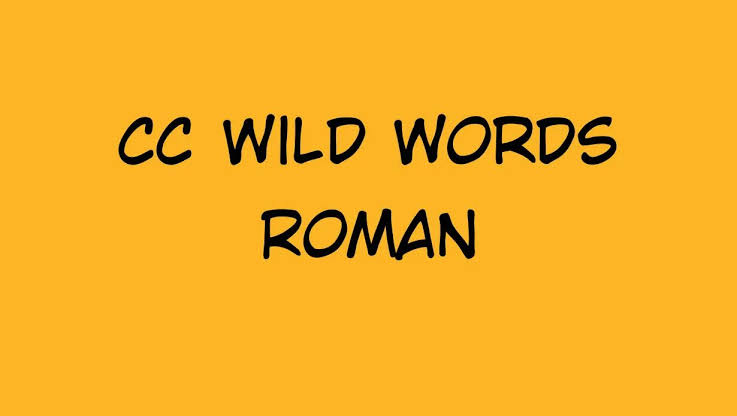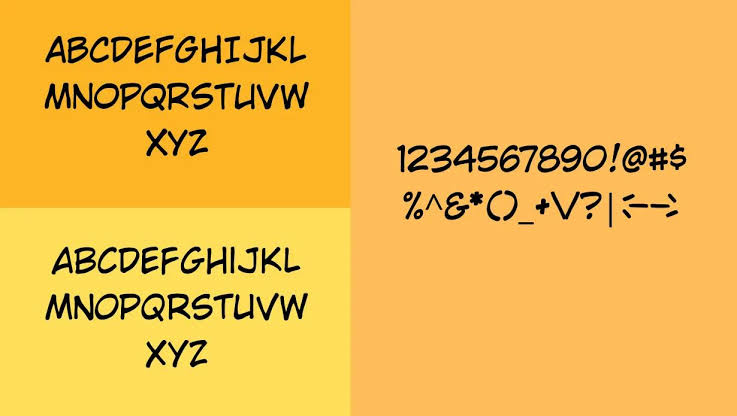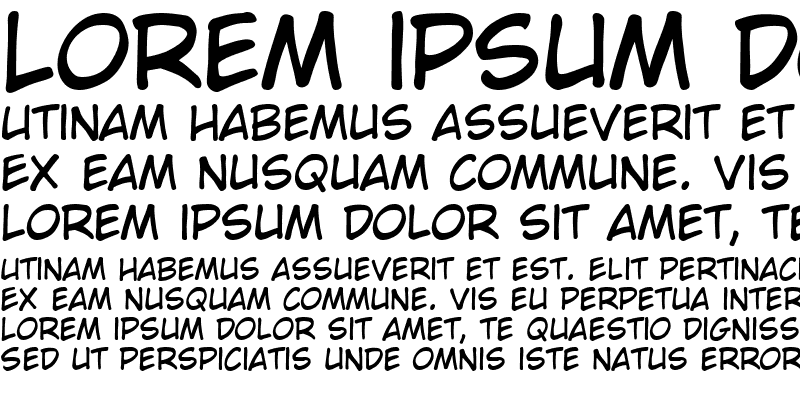
Cc Wild Words Roman Font is a comic-style display typeface used when regular fonts do not capture the energy of hand-lettered text. Designers often choose it for comic books, speech balloons, posters, and children's graphics where readability and expressive lettering are equally important. Its bold appearance helps text remain clear even in busy layouts.
Cc Wild Words Roman Font belongs to the display font category and is inspired by traditional comic book lettering. It features thick strokes, rounded edges, balanced spacing, and uppercase-focused characters that remain readable at different sizes. The font creates a hand-drawn look while keeping letterforms consistent, making it suitable for both print and digital projects. Its simple structure also improves clarity in speech bubbles and short headlines.
Graphic designers commonly use this font for comic books, graphic novels, YouTube thumbnails, gaming artwork, educational worksheets, children's books, and promotional posters. It also works well for merchandise, stickers, and event banners where text needs to stand out quickly. Since it is designed mainly for display purposes, it is not recommended for long paragraphs or body text. For better readability, pair it with a clean sans-serif font such as Arial or Helvetica in supporting text.